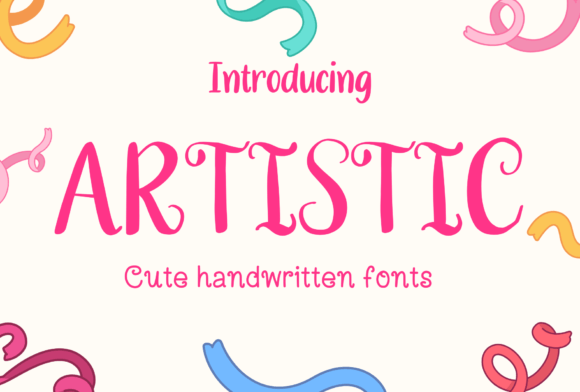
The Artistic Font: A Cute and Feminine Handwritten Delight
Have you ever been in the middle of a design project, and suddenly, you’re stuck on finding the perfect font? I recall a recent experience where I was working on a birthday card design, and my client specifically asked for a “cute and feminine” feel. After scouring through my font library, I stumbled upon the Artistic font, and it instantly became the perfect fit. In this article, we’ll dive into the world of Artistic, a beautiful handwritten font that’s perfect for various creative projects.
A Personal Review of Artistic Font
What I Love About Artistic Font
- ✨ Cute and feminine: Artistic font embodies a playful, whimsical vibe that’s perfect for designs that require a touch of sweetness.
- ✅ Highly versatile: This font can be used on various products, such as birthday cards, anniversary cards, Mother’s Day cards, Christmas cards, pillows, stickers, T-shirts, planners, keychains, mugs, and more.
- 💕 Emotional connection: The Artistic font has a way of evoking emotions and creating a personal connection with your audience, making it ideal for heartfelt designs.
While Artistic font is an excellent choice for many projects, there are a few minor quirks to consider:
- 🤔 Limited use in formal designs: Due to its playful nature, Artistic font might not be the best fit for formal or professional designs.
- ⚠️ Legibility at small sizes: As with many script fonts, Artistic may become less legible at very small font sizes.
The Designer Inspiration Behind Artistic Font
The Artistic font was created with the intention of capturing the essence of handmade, feminine designs. The designer aimed to create a font that would evoke emotions and add a personal touch to various creative projects. While the designer’s story might be fictional, the font’s charm and character are undeniable.
Q: What type of projects is Artistic font best suited for?
A: Artistic font is perfect for designs that require a cute and feminine touch, such as birthday cards, anniversary cards, Mother’s Day cards, Christmas cards, and various products like pillows, stickers, T-shirts, and more.